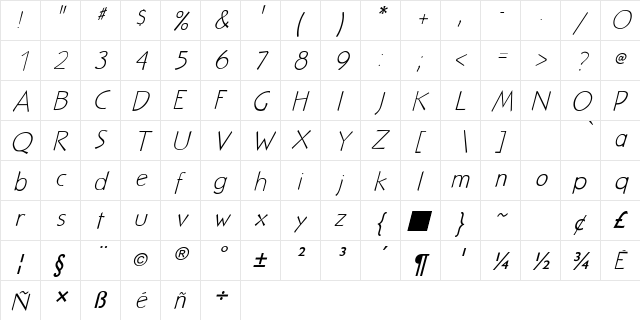
NuevoLitho LightItalic
Design Context for NuevoLitho Typeface
NuevoLitho offers clean, dependable letterforms without strong stylistic allegiance, making it a practical choice for designers who need flexibility. The dynamic lean of this cut emphasises speed and emphasis in any layout. The delicate stroke weight brings airiness and refinement to layouts.
Pro Tip: Use NuevoLitho for emphasis, pull quotes, and subheadings where its slanted energy can add rhythm to the layout.